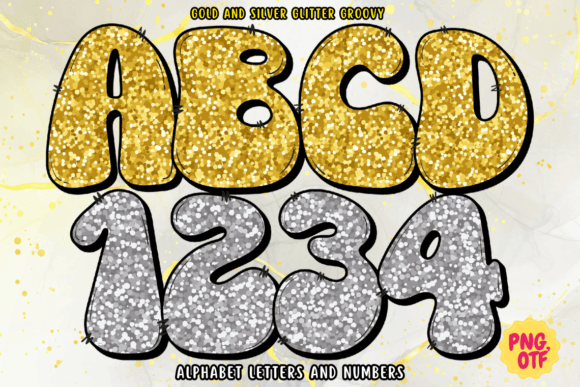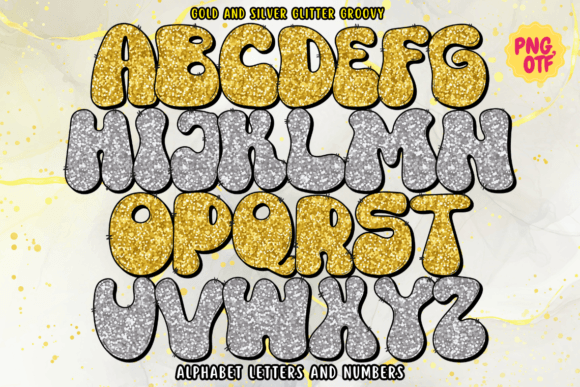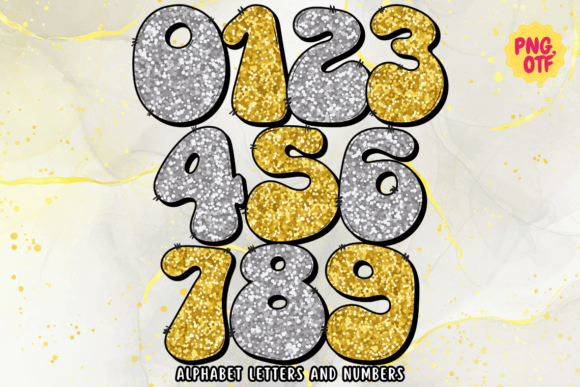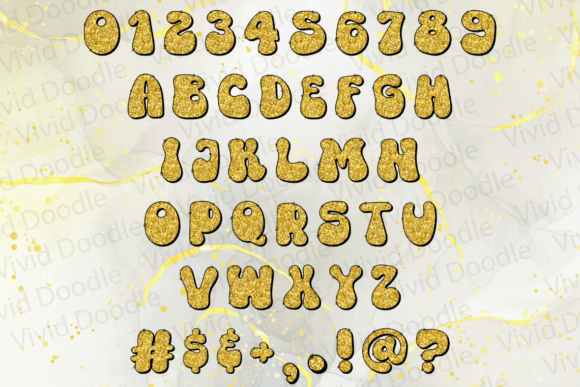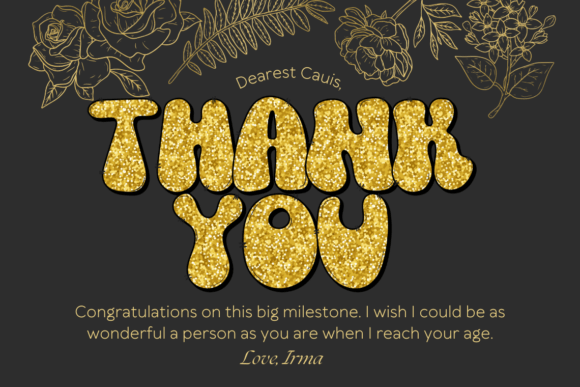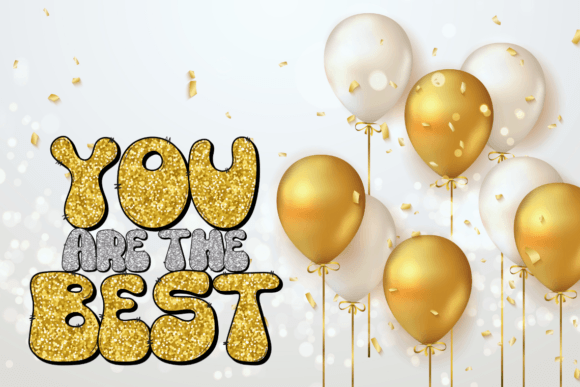
Gold and Silver Glitter Groovy Font
Unleash a dazzling touch of glamour with Gold and Silver Glitter Groovy, a font that effortlessly blends retro vibes with a sparkling finish. This typeface combines the chic, free-spirited essence of groovy design with the luxurious shine of gold and silver glitter, making it the perfect choice for any project that calls for a bit of celebration and flair. Ideal for graphic designs, party invitations, posters, and all sorts of festive occasions, Gold and Silver Glitter Groovy adds a touch of elegance and fun to your work. Whether you’re creating event flyers, holiday cards, or decorative elements, this font will make your designs shimmer and shine with its eye-catching sparkle. Embrace the glitz and glam with Gold and Silver Glitter Groovy and elevate your creative projects to a new level of brilliance!